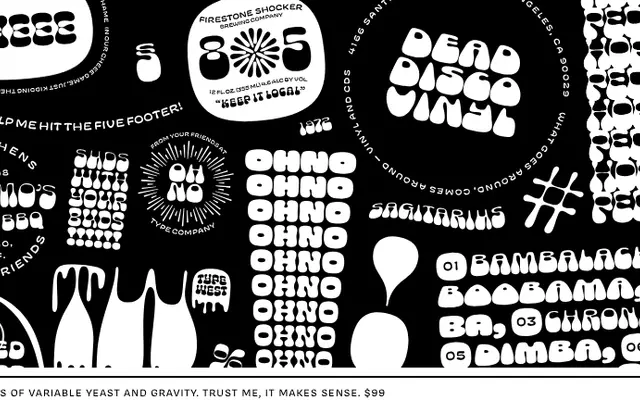
Cheee
OH no Type · James Edmondson, Alexis Boscariol
A variable display typeface with axes for Yeast and Gravity, producing dripping, blobby letterforms across 25 named styles with roots in 1970s psychedelia.
Cheee uses two variable axes, Yeast and Gravity, to morph letterforms from tightly controlled to wildly dripping globs, with a companion Small style for subheads. The 25 named styles, each named after real people bar Bingbong, span the full range of the axes and can be purchased individually or as a complete family including a single variable font file. Production work was contributed by Alexis Boscariol, and the design openly acknowledges its debt to 1970s vernacular lettering.
A wildly expressive variable display typeface with axes for Yeast and Gravity, producing dripping, wobbly letterforms across 25 named styles. Clearly display category with no conventional serif or sans-serif classification applicable.